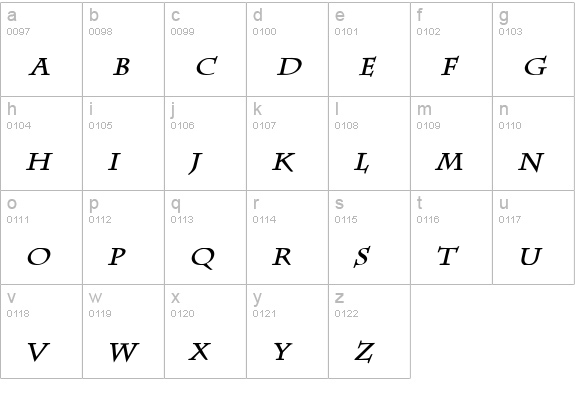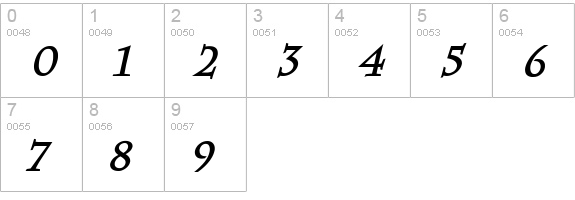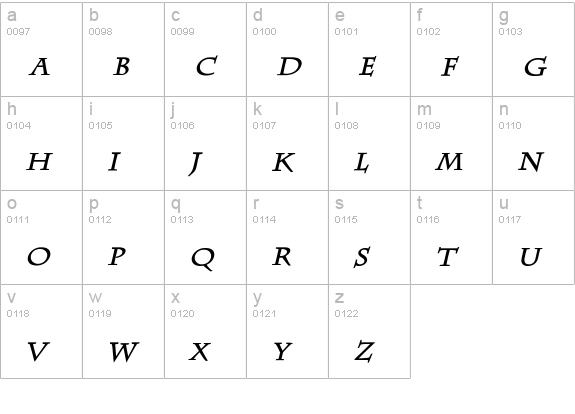
Chaz Bold Italic is a strong, high-contrast, italic variant in the Chaz typeface family \xE2\x80\x94 well suited to headlines, attention-grabbing titles, and strong calls-to-action.
Introducing Chaz Bold Italic font, a bold and dynamic typeface designed to make a statement. With its sleek curves and strong lines, Chaz Bold Italic exudes confidence and modernity. The perfect choice for projects that require a touch of sophistication and flair. And the best part? Chaz Bold Italic font is available for free download at FontsMarket.com. Embrace the power of this striking typeface and elevate your designs to new heights. So what are you waiting for? Download Chaz Bold Italic today and let your creativity shine!